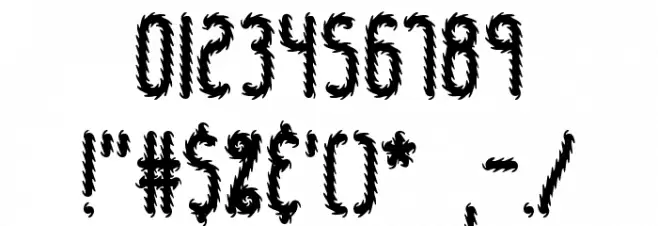
Hairball BRK Font
Hairball BRK Description
This font features a unique and playful design, characterized by its textured, hair-like strokes that give each character a dynamic and whimsical appearance. The letters are bold and slightly condensed, with a consistent pattern that resembles strands of hair or fur, creating a sense of movement and energy. The uppercase and lowercase letters maintain a uniform style, while the numbers and special characters are equally distinctive, making this font ideal for creative and eye-catching designs. Its decorative nature makes it stand out, perfect for projects that require a fun and engaging visual element.
A playful, textured font with hair-like strokes for a whimsical look from Uncategorized fonts.
- Proposed Projects: Ideal for children's book covers, playful branding, event posters, and creative social media graphics.